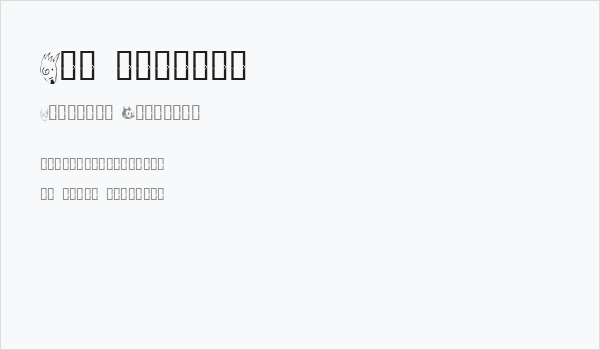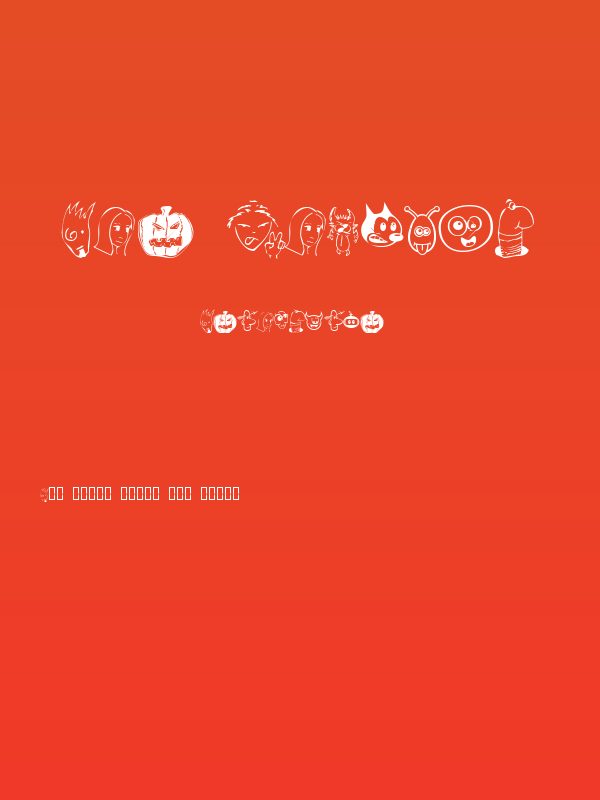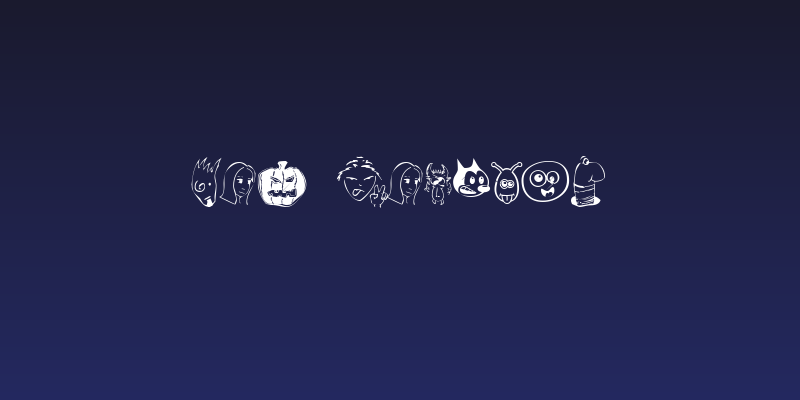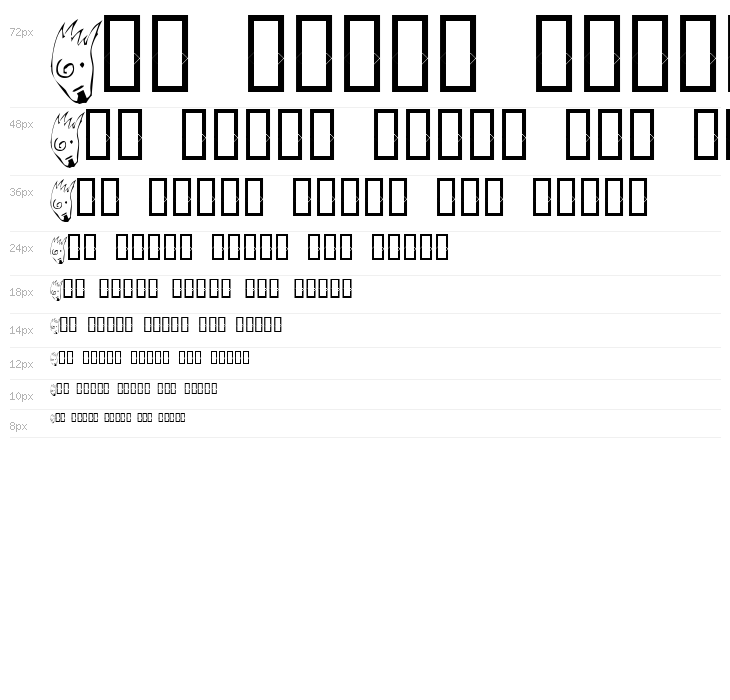
Toy soldier Font
Toy soldier Description
A highly decorative and whimsical dingbat font composed entirely of hand-drawn cartoon faces, characters, and expressive icons, each glyph representing a unique illustration rather than traditional alphanumeric forms.
| Overall Style | Whimsical, Playful, Decorative |
| Use Case | Decorative elements, Illustrative accents, Themed graphics |
| Proposed Projects | ChildrenΓ’β¬β’s books, party invitations, comic strips, playful branding, stickers, scrapbooking, and creative posters. |